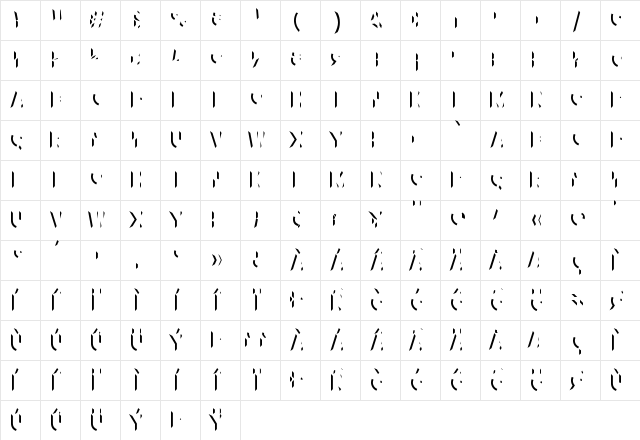
Xylitol Left
Style: Left
Xylitol Family
Design Context for Xylitol
Xylitol is a composed and adaptable typeface that performs quietly and consistently across a wide range of design contexts.